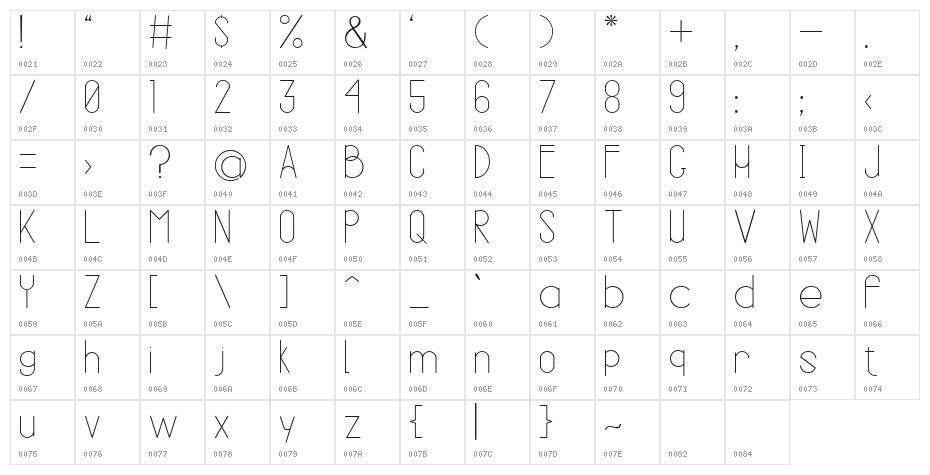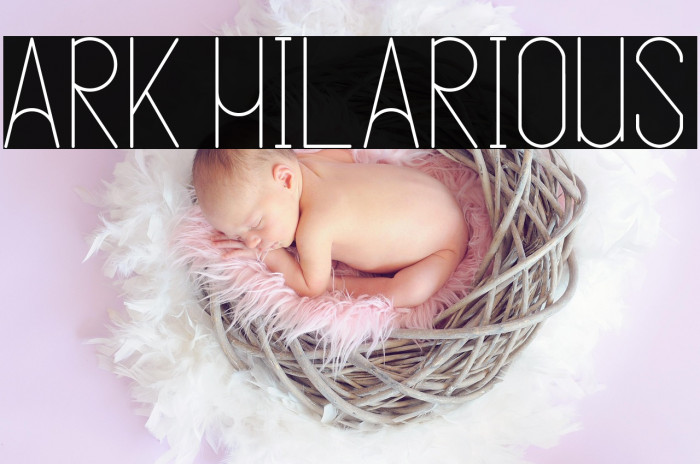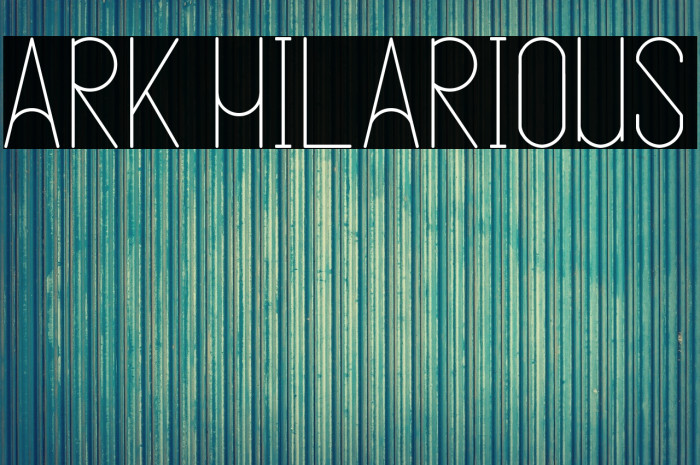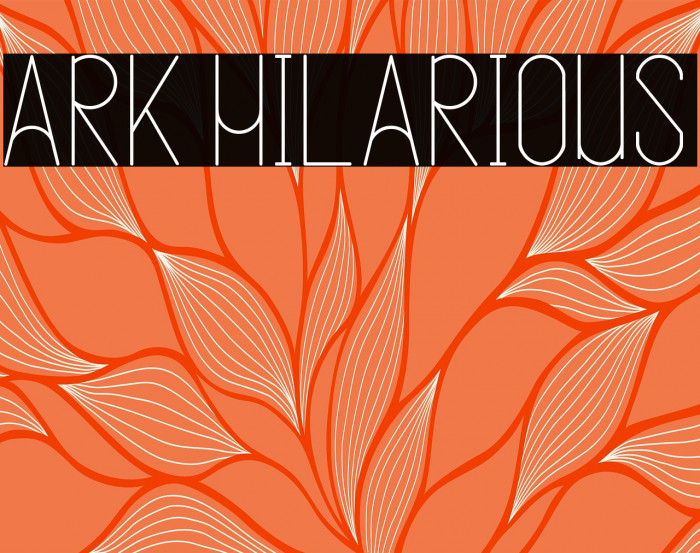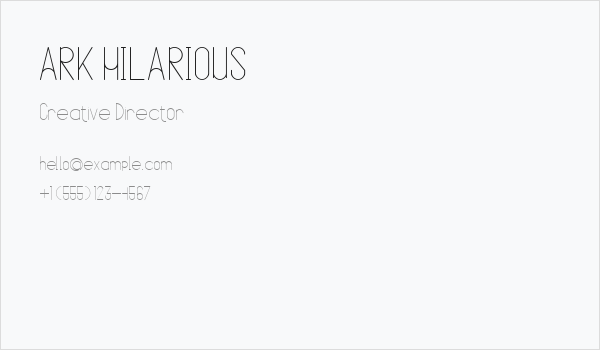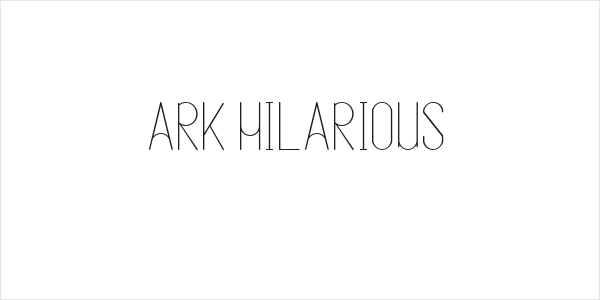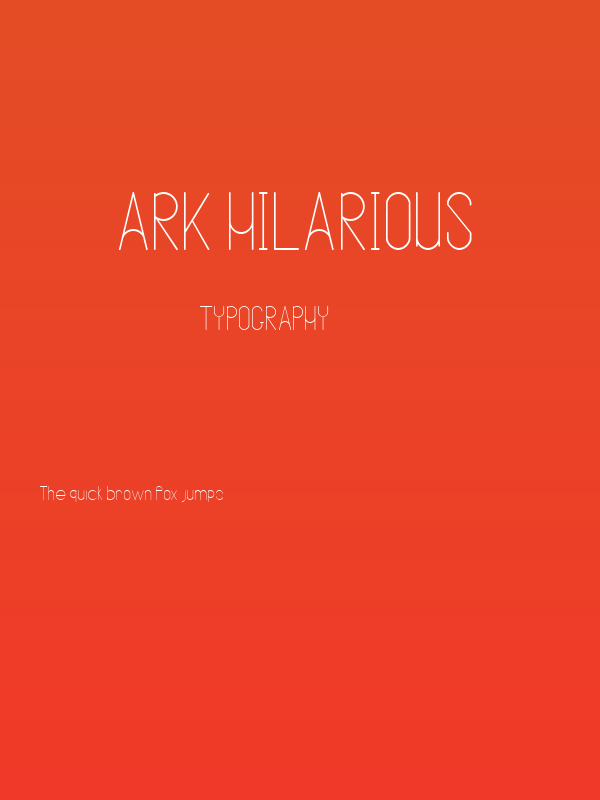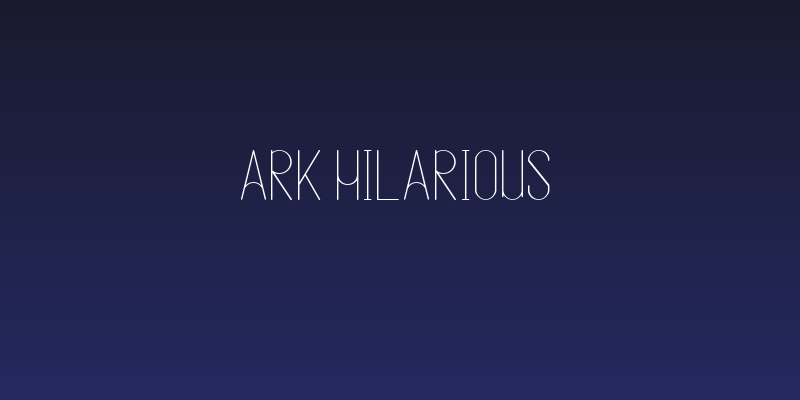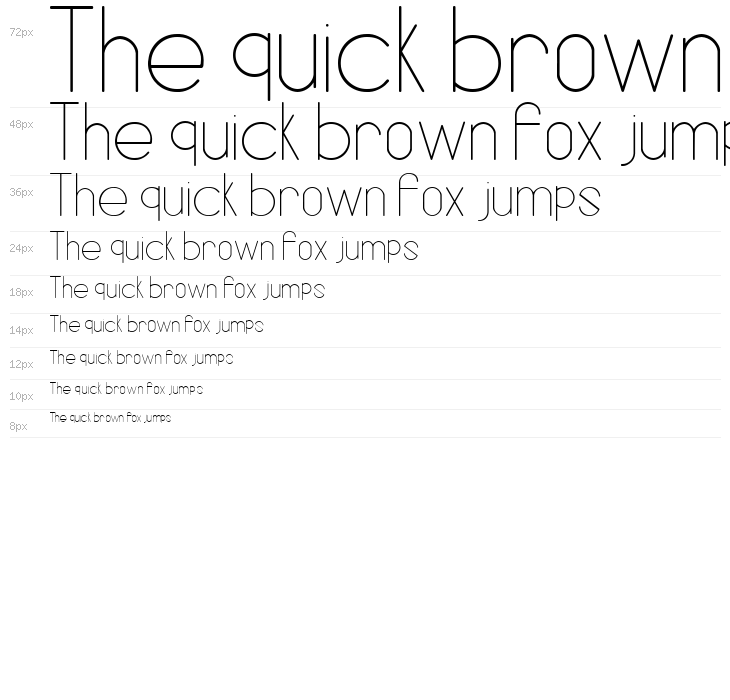
ARK HILARIOUS Font
ARK HILARIOUS Description
This font features a clean, geometric design with a modern aesthetic. The characters are composed of thin, uniform lines that create a sense of elegance and simplicity. The uppercase letters are tall and narrow, while the lowercase letters maintain a consistent height, contributing to a harmonious appearance. The numerals and special characters follow the same design principles, ensuring a cohesive look across all elements. The font's minimalistic style makes it versatile for various applications, from digital interfaces to print media. Its clarity and readability are enhanced by the generous spacing between characters, which prevents any visual clutter.
| Proposed Projects | Ideal for branding, editorial design, digital interfaces, and minimalist posters. |